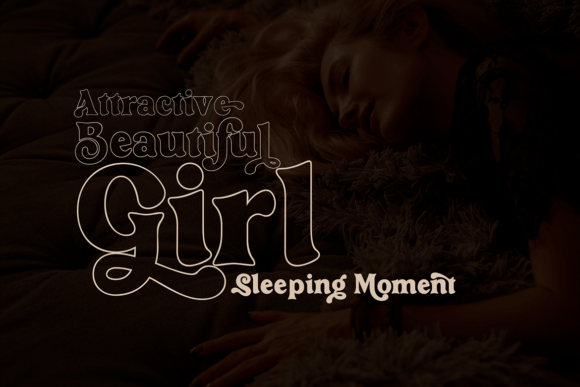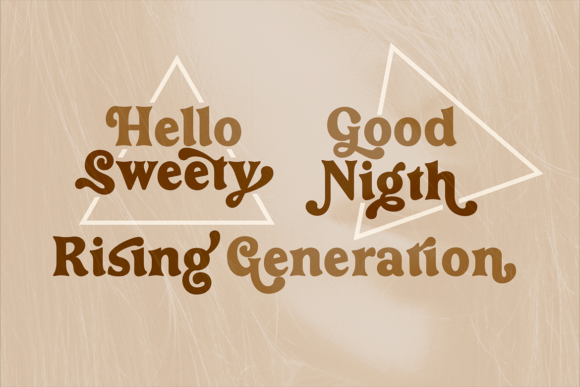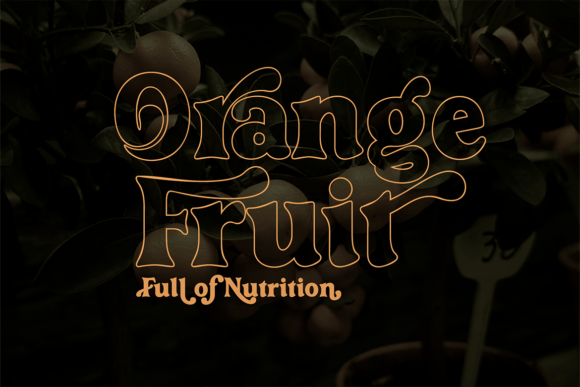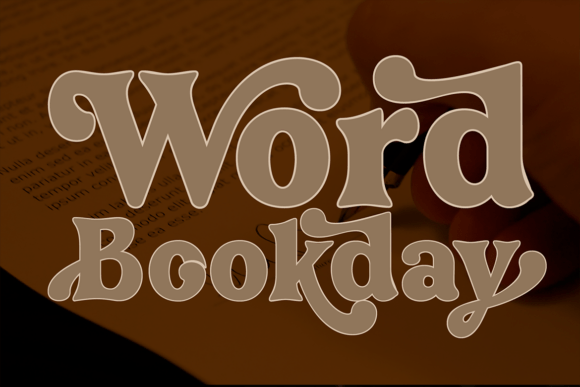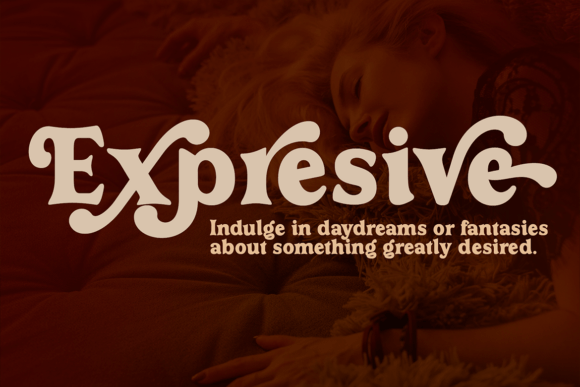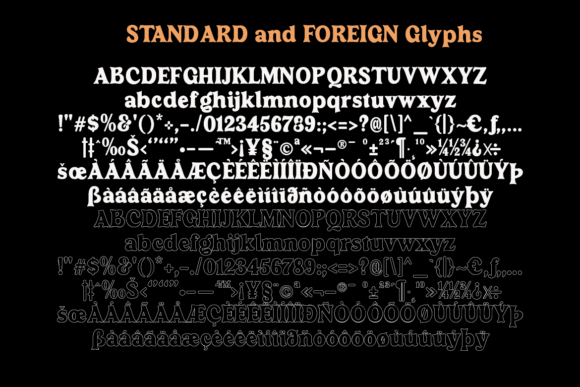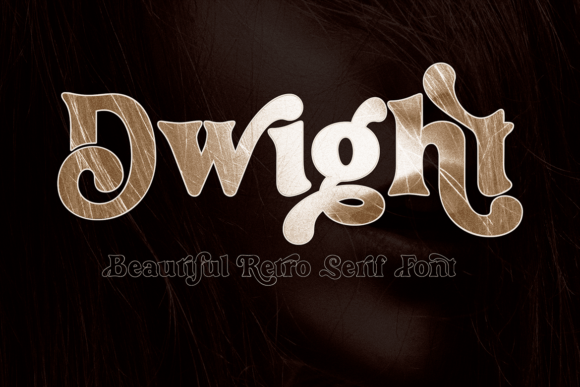
Introducing the Dwight Font: A Strong and Elegant Serif Font Family
Are you looking for a font that exudes confidence and sophistication? Look no further than the Dwight Font, a serif font family that is sure to elevate your designs to the next level. With its strong and bold character, Dwight is perfect for creating stunning logos, quotes, advertisements, and more.
What Makes Dwight Unique?
Dwight is a versatile typography that comes in two variants, offering a range of possibilities for designers and crafters. The font features standard styles, stylistic alternates, and ligatures, making it an excellent choice for a wide range of applications. Whether you’re working on a branding project, magazine, film, or simply want to add a touch of elegance to your designs, Dwight has got you covered.
Key Features of the Dwight Font
- Strong and Bold Character: Dwight’s serif design gives it a robust and confident feel, making it perfect for headlines, titles, and quotes.
- Two Variants: The font comes in two variants, offering a range of options for designers to experiment with.
- Standard Styles, Stylistic Alternates, and Ligatures: Dwight includes a range of features that allow for greater flexibility and creativity in your designs.
- Multilingual Support: The font supports a wide range of languages, including French, German, Spanish, Portuguese, Italian, Dutch, Finnish, Swedish, and more.
- Comprehensive Character Set: Dwight includes upper and lower case letters, numbers, and punctuation marks, ensuring that you have everything you need to create stunning designs.
Applications for the Dwight Font
The Dwight Font is an incredibly versatile typography that can be used in a wide range of applications, including:
- Branding: Create stunning logos and brand identities with Dwight’s bold and elegant character.
- Magazines and Publications: Use Dwight to add a touch of sophistication to your magazine or publication.
- Films and Video: Dwight’s strong and bold character makes it perfect for film titles, credits, and video projects.
- Advertising: Create eye-catching advertisements with Dwight’s elegant and refined design.
In conclusion, the Dwight Font is an exceptional serif font family that offers a unique combination of strength, elegance, and versatility. With its comprehensive character set, multilingual support, and compatibility with a wide range of software, Dwight is the perfect choice for designers and crafters looking to elevate their designs to the next level.